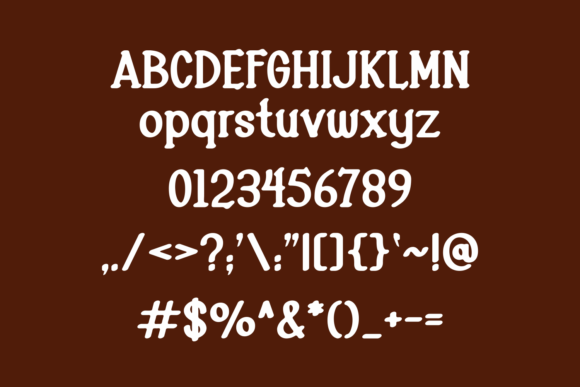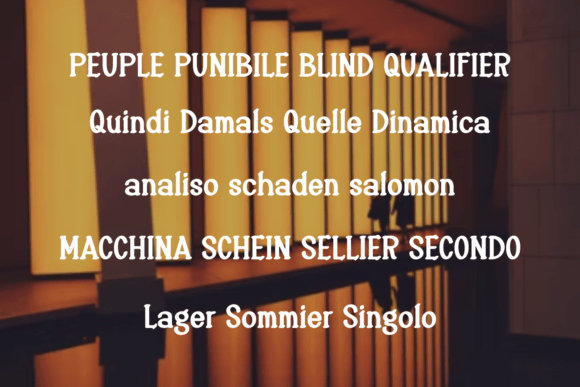
Introduction to Nithory Font
Have you ever stared at a blank canvas, eager to bring a creative project to life, only to be halted by the perfect font? The elusive combination of style and functionality can be a designer’s nemesis. However, what if you stumbled upon a font that effortlessly elevated your design, no matter the topic?
This is where the Nithory Font comes in – a cool and unique serif font that has the potential to be the missing piece in your design puzzle. With its high-quality design and versatility, it’s no wonder that designers are flocking to this incredible resource.
Whether you’re working on a free download project or a paid gig, the Nithory Font is an invaluable asset to your library. Its transparent background and sleek design make it perfect for a wide range of creative projects, from logos to brochures and beyond.
Key Features of Nithory Font
- Unique, modern design that sets it apart from other fonts
Honest Review: Nithory Font
As a designer, I’m always on the lookout for high-quality design resources to enhance my creative projects. The Nithory Font is one such resource that caught my attention. In this review, I’ll share my honest thoughts on its features, usability, and overall performance.
- High-quality typography: The Nithory Font boasts beautiful, elegant typography that’s perfect for headings and titles.
- Limited font styles: The Nithory Font offers a limited range of font styles, which may not cater to designers who require more variety.
- Not suitable for body text: While the font is great for headings, it may not be the best choice for body text due to its large size and ornate design.
Overall, the Nithory Font is a valuable addition to any designer’s toolkit, particularly for creative projects that require elegant typography. While it has its limitations, its high-quality design and free download make it a worthwhile resource to explore.
The Nithory Font is a high-quality design resource ideal for creative projects that require a unique and stylish touch. This versatile font is available for free download, making it an excellent choice for designers and non-designers alike.
The Nithory Font is ideal for a variety of creative projects, including logos, brochures, business cards, and social media graphics. Its high-quality design and transparent background make it perfect for use in a range of design applications.